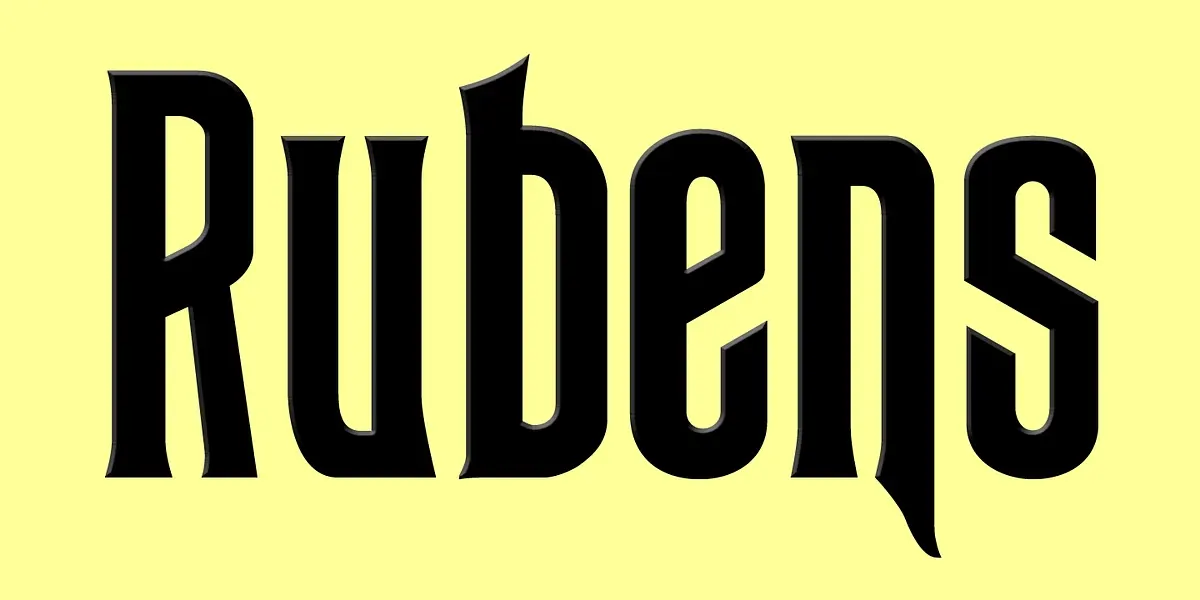
Rubens Font Free Download is a modern and elegant serif typeface designed with sophistication and readability in mind. Featuring smooth, refined curves and strong serifs, Rubens is perfect for use in branding, editorial design, logos, and high-end print materials. Its timeless look combines classic elegance with contemporary versatility, making it ideal for both formal and stylish designs.
Whether you’re working on a luxury brand, a fashion magazine, or a professional website, Rubens adds a touch of class and refinement to your typography.